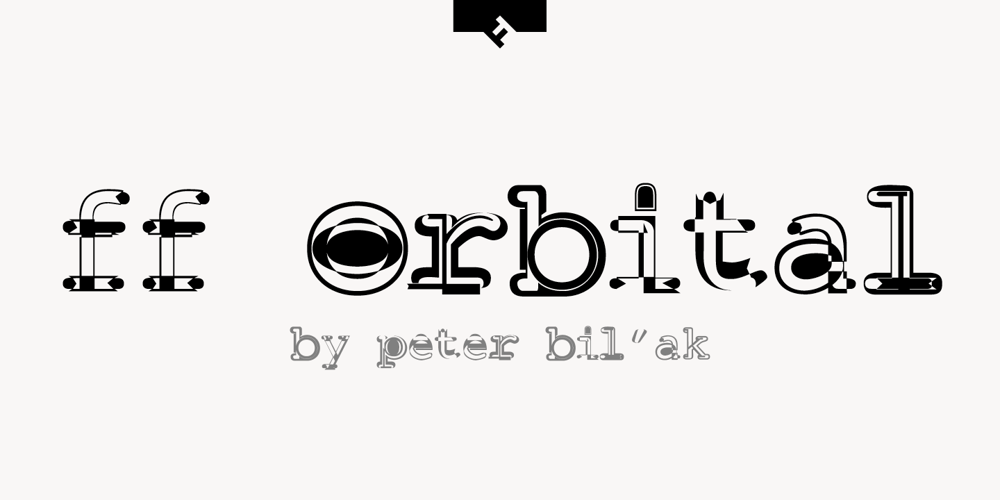
FF Orbital Font Family was designed by Peter Bil’ak and published by FontFont. FF Orbital contains 1 styles and family package options. Slovakian type designer Peter Bil’ak created this display FontFont in 1996. The font is ideally suited for film and tv, music and nightlife as well as software and gaming. FF Orbital provides advanced typographical support with features such as ligatures. It comes with tabular lining figures.